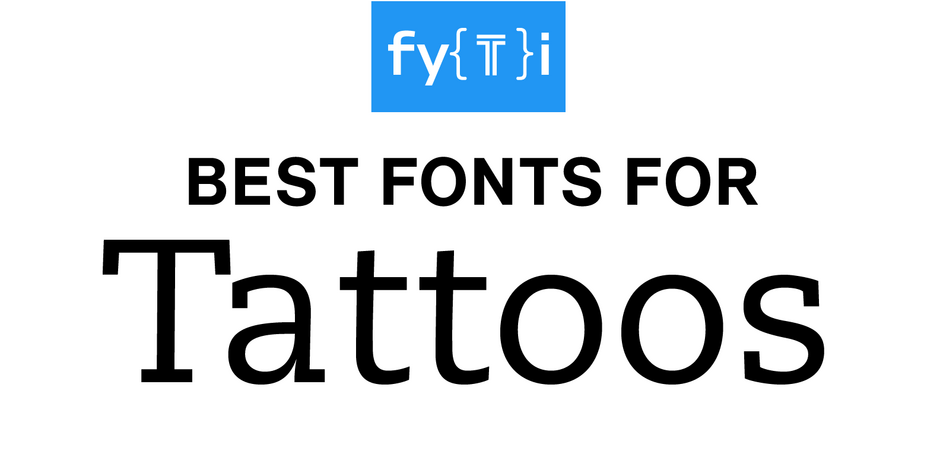
Best Fonts for Tattoos
What Are the Best Fonts for Tattoos?
MyFonts offers the largest selection of fonts for tattoos. Our font experts have chosen the best of these and provided sound guidance on how to determine which is best to express your unique personality, persona and message.
Three Things You Should Know About Fonts for Tattoos
The Meaning of Your Tattoo
Think about the meaning of your tattoo: Tattoos are frequently used to commemorate a significant event or person in your life: everything from the birth of a child, the death of a loved one, or an important accomplishment. A flowing script font, like Young Baroque™ that may be perfect for commemorating a birth, may not be appropriate for memorializing an important event. A font like PMN Caecilia® could be a better choice.
The Size of Your Tattoo
The size of a tattoo will play a big role in determining which type of font is right for you. For example, a serif design or script font might be difficult to read at small sizes. In this case, opting for a simple sans serif font like Helvetica® Now or ITC Avant Garde Gothic® would be a better choice.
Make Sure it Reflects Your Personality
Risks of Using Foreign Language Words and Non-Latin Fonts
Cultural appropriation is a key concern. You may be, unwittingly, disrespecting traditions, reinforcing stereotypes, and perpetuating inequality and misunderstanding. Without proper research and understanding, you could also end up with a tattoo that conveys a completely different message than intended – like announcing that you are an orange, rather than a warrior.
What is the Best Script Font For a Tattoo?
Traditionally, tattoo fonts were Blackletter, script or simple, single stroke sans serif designs. This small palette has grown into one that incorporates virtually any kind of typeface design. The most prominent of which are scripts, calligraphic, and glyphic designs.
When it comes to script fonts for tattoos, certain characteristics can make them stand out and create a beautiful and unique design. The best characteristics of script fonts for tattoos include elegance, legibility, versatility, and flow. Elegant scripts, like Young Baroque™ and Nadianne® add a touch of sophistication to tattoos, while ensuring that the words are easily read. Versatility allows for customization and personalization, allowing the artist to add their own style and flair. There are several fonts, such as Zapfino® Extra  and Elegy™ that provide alternated and swash characters, easily creating a distinctive tattoo that seamlessly follows the contours of the body.
Be aware of tattoo placement, when thinking about using a script font. The bold weight and striking swash caps of Balmoral™ make a strong statement at large sizes, but can become difficult to read, if used small. Here, a font like Fine Hand™ would be equally distinctive, but more legible at small sizes.
Which is Better for Tattoos, Serif or Sans Serif Fonts?
When it comes to choosing between sans serif and serif fonts for tattoos, personal preference and style play a significant role. Sans Serif fonts, like Neue Frutiger® or ITC Franklin Gothic are characterized by their clean and straightforward design, and ability to create modern and minimalist vibe. They are often preferred for contemporary tattoos or when simplicity is desired.
On the other hand, serif fonts, such as ITC Bookman™ or ITC Berkeley Old Style™, provide a more traditional and elegant mien. They can be a great choice for tattoos that aim to convey a classic or timeless aesthetic. Ultimately, the best font for a tattoo depends on your individual taste, the desired message, placement, and overall design concept.
Should I use All-Caps for Tattoos?
Capital letters do not combine as well with each other as do lowercase characters. Because capitals have more diverse character shapes, intercharacter spacing often appears uneven. If you want a tattoo in all capitals, consider sans serif designs like Neue Frutiger® or DIN® Next. Sans serif fonts have simpler character shapes and tend to be more legible than serif designs.
If you want the elegance of a serif font, look to designs like ITC Berkely Old Style or ITC Vineyard, which have somewhat condensed proportions that lean to typographic harmony, than fonts with wide capital letter proportions. There are also all-cap, or titling, fonts like Perpetua® Titling, or Forum Titling™, that were designed to perform well in all-cap environments. Click here for more information on titling fonts.